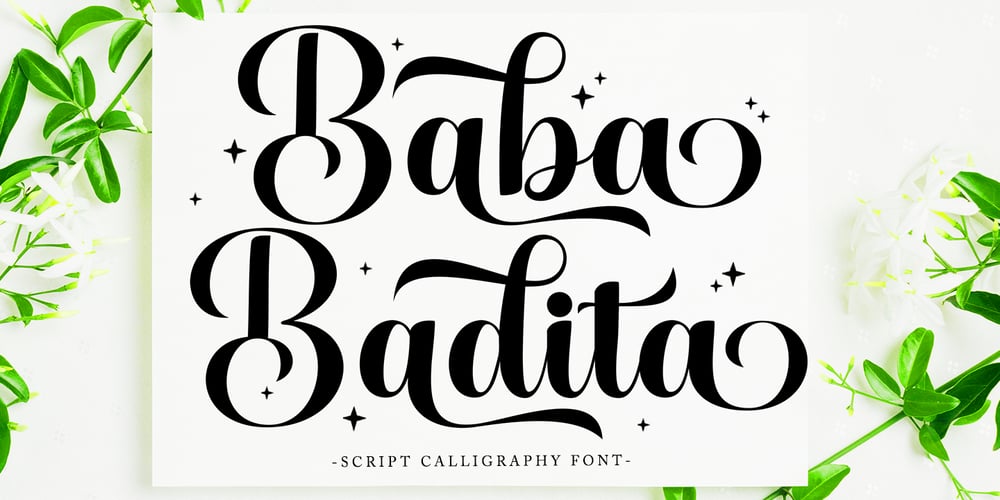
Baba Badita Font Family was designed by Muhammad Nazar and published by Bungletter. Baba Badita contains 1 styles and family package options. Baba Badita is a very beautiful, elegant and unique script font. Expertly designed to be a true favorite, this font has the potential to take your creative ideas to the highest level!Baba Badita is attractive because it is sleek, clean, feminine, sensual, glamorous, simple and easy to read, thanks to its many luxurious letter connections. I also offer a number of viable alternative styles for all letters. The classic style is perfect for applying in various formal forms such as invitations, labels, restaurant menus, logos, fashion, makeup, stationery, novels, magazines, books, greeting/wedding cards, packaging, labels or any type of advertising. for your needs. . . . . . . .Contains a complete set: Uppercase Lowercase Alternatives Ligatures Punctuation Numbers Multilingual support. Need help or have questions, let me know. I’m happy to help.Thank you & Congratulations on the Design.